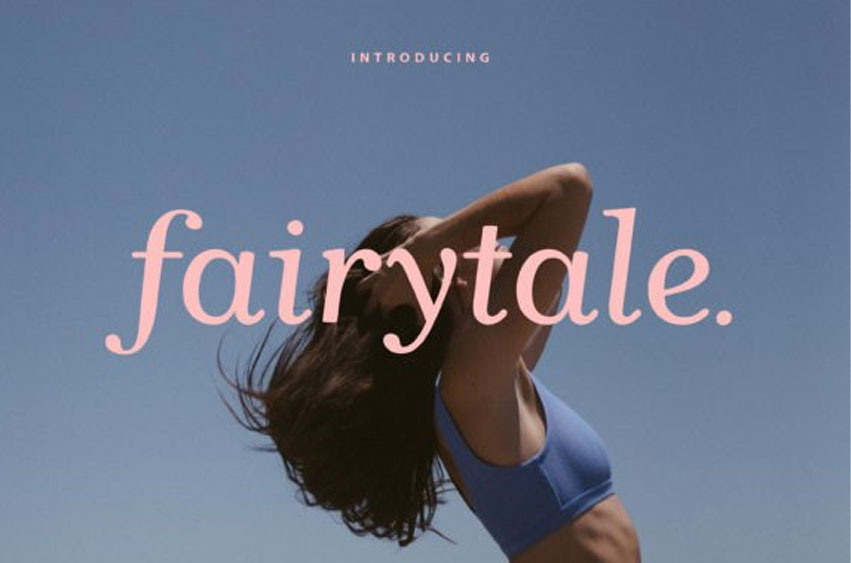
Fairytale Font
Fairytale Font is an inspiring and friendly font that features smooth rounded letters and soft curves, giving it a warm and inviting appearance.
Every letter has a unique and beautiful touch, which will make your design come alive!